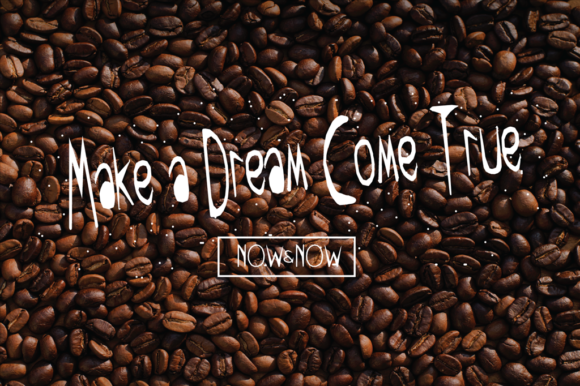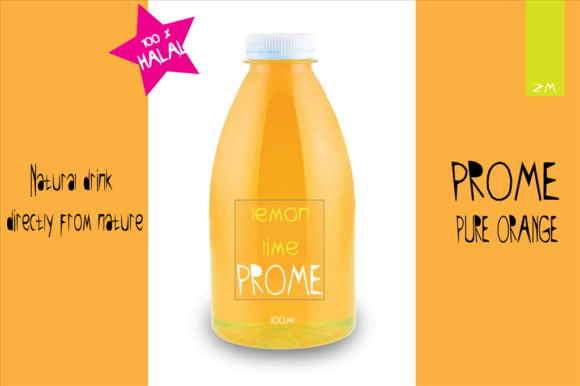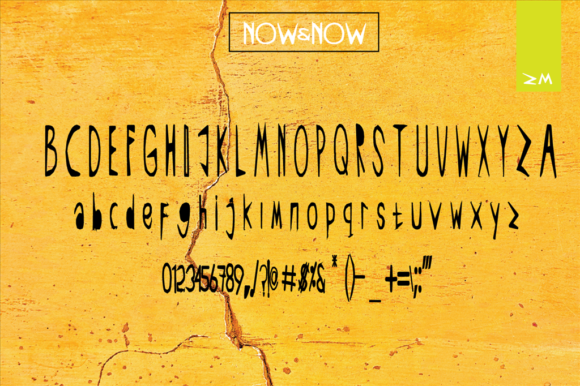
Introduction to Now & Now Font
Have you ever stared at a blank page, eager to bring your creative vision to life, only to feel overwhelmed by the endless possibilities? That’s when you need a trusty design companion – one that sparks inspiration and guides your artistic journey. For designers and creatives, finding the perfect font can be a game-changer. And today, we’re excited to introduce you to a unique and captivating display font that’s sure to elevate your projects: the Now & Now Font.
This high-quality font is more than just a design resource – it’s a versatile tool that can add a touch of whimsy to your children’s designs, provide a fun twist for school projects, or even set the tone for your spooky October ideas. With its transparent background and free download option, you can experiment with the Now & Now Font without any limitations.
Key Features of Now & Now Font
- High-quality design resource with a modern and creative aesthetic, perfect for any project.
- Unique transparent background design, allowing for seamless integration with any background.
- Perfect for use in digital and print media, including logos, branding, and creative projects.
- Now & Now Font is a versatile design resource that can be used for a wide range of applications, from web design to advertising.
Honest Review: Now & Now Font
As a designer, I’m always on the lookout for high-quality design resources to elevate my creative projects. The Now & Now Font is one such resource that caught my attention. Upon using it, I was impressed by its versatility and ease of use.
- ✨ Unique design aesthetic: The Now & Now Font boasts a distinctive, modern design that sets it apart from other fonts.
- ✨ High-quality glyphs: The font’s glyphs are well-crafted, making it suitable for a wide range of design applications.
- ✨ Transparent background: The font’s transparent background makes it easy to work with, allowing for seamless integration with other design elements.
However, I do have a few reservations about the Now & Now Font. While it’s a great addition to any designer’s toolkit, I found it to be somewhat limited in its font weight options.
- ⚠️ Limited font weights: The font only comes in a few weight options, which may not be suitable for all design applications.
Overall, I’d say the Now & Now Font is a solid choice for designers looking for a modern, high-quality font for their creative projects. While it may not be perfect, its unique design aesthetic and ease of use make it a valuable addition to any design resource library.
Getting the Most Out of Now & Now Font
To maximize the use of the Now & Now Font, experiment with different font sizes, colors, and styles. Use it in combination with other design elements to create visually appealing designs. This font is perfect for creating eye-catching headings, titles, and captions.
The Now & Now Font is ideal for various creative projects, including:
– Social media graphics
– Blog posts and articles
– Presentations and reports
– Marketing materials and flyers
What is the recommended usage for the Now & Now Font?
The Now & Now Font is a versatile design resource that can be used in a variety of creative projects, including branding, typography, and graphic design. It is recommended to use the font in conjunction with other high-quality design elements to create a cohesive and visually appealing design. The font’s clean and modern design makes it an excellent choice for designers looking to add a touch of sophistication to their project.